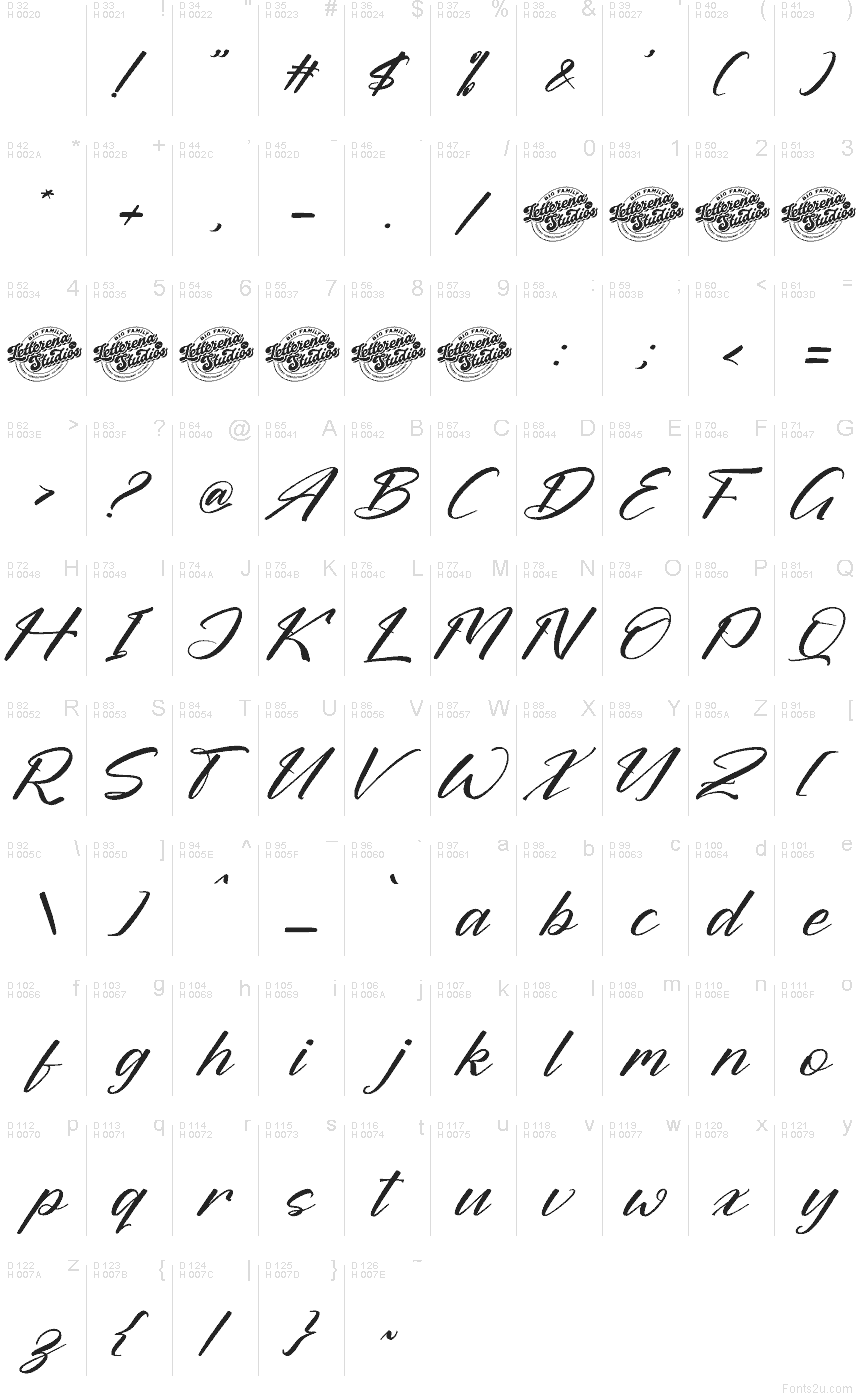
Daltomy Fabiola DEMO VERSION Italic
Daltomy Fabiola Italic font by Letterena Studios is a free calligraphy typeface that captures the ease of fast, confident handwriting. Its flowing, right-leaning letters are slim and silky, with gentle loops that feel like they were written in one breath. The strokes are smooth and inky, giving every word a refined, romantic finish without feeling stiff or over-decorated.
Using Daltomy Fabiola Italic, you can bring a graceful handwritten touch to wedding invitations, save-the-dates, branding for boutiques or salons, elegant packaging, personalized stationery, and social media quote graphics. This free font shines when you give it space—set it larger for names and headlines, then pair it with a clean sans serif from the Daltomy Fabiola family or a simple geometric sans for body text.